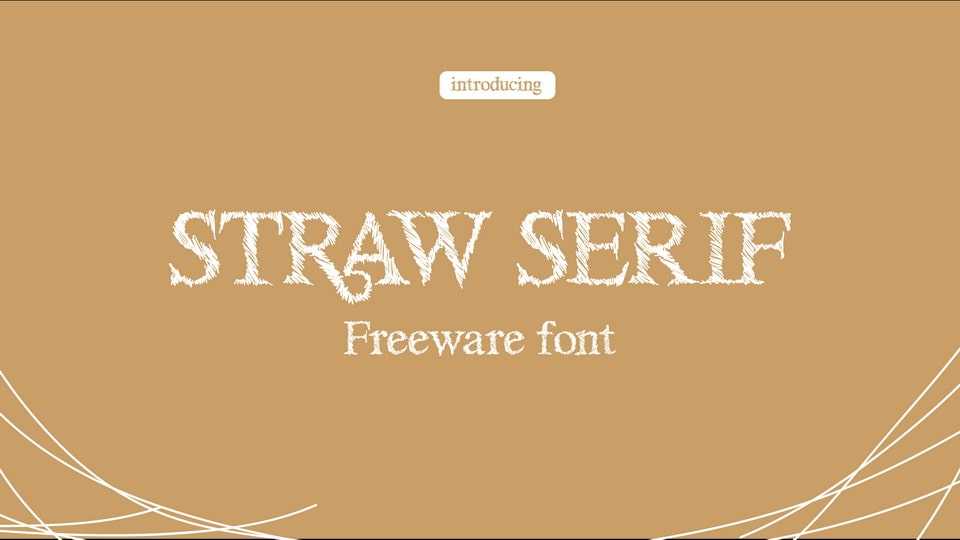
Download Straw Serif font, a captivating and distinctive typeface that seamlessly blends modern elegance with timeless sophistication. Crafted with meticulous attention to detail, Straw Serif font exudes a sense of charm that sets it apart from the ordinary.